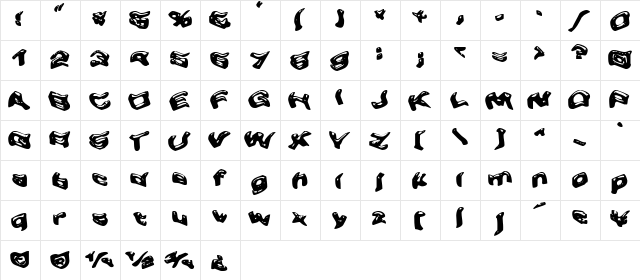
Warped Greased Monkey Font Preview
Warped Greased Monkey Warped Greased Monkey
Warped Greased Monkey Font Details
Design Context for Warped Greased Monkey Typeface
Warped Greased Monkey is a composed and adaptable typeface that performs quietly and consistently across a wide range of design contexts.